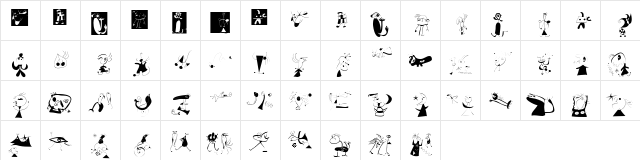
AIWitches Regular
| Copyright | \251 1995 ALPHABETS, INC./MANFRED KLEINMiro painted it with colors, PS Type 1 knows only black & white. on a wacom tablett I improvised some drawing sketches free hand form Miros spirit ... Use it for decorations of text columns. |
Design Context for AIWitches Typeface
AIWitches is a composed and adaptable typeface that performs quietly and consistently across a wide range of design contexts.